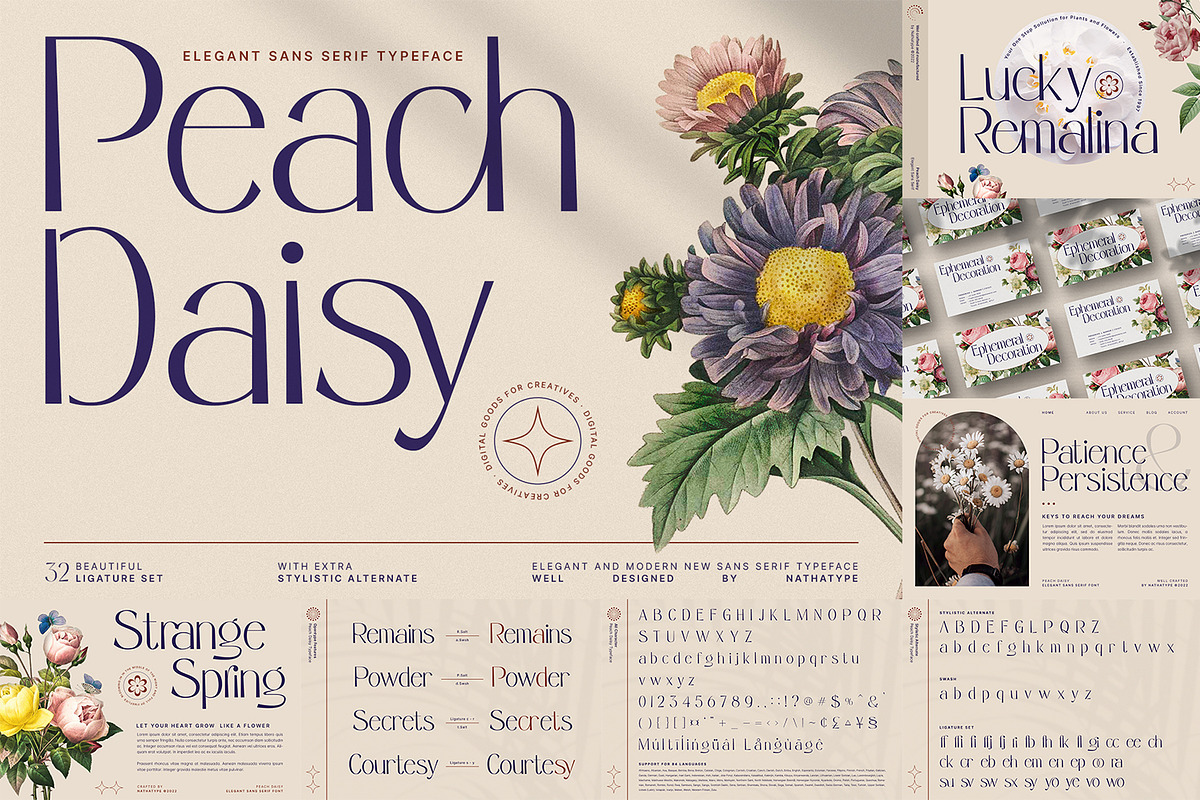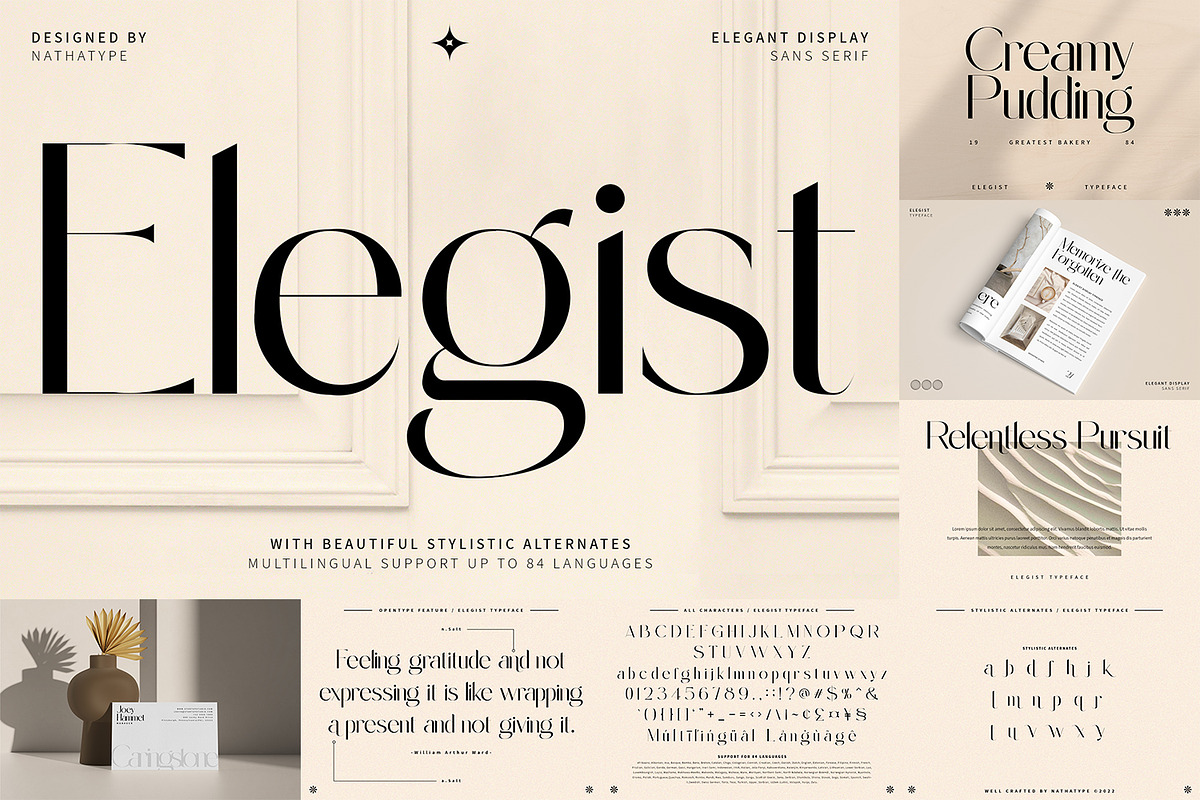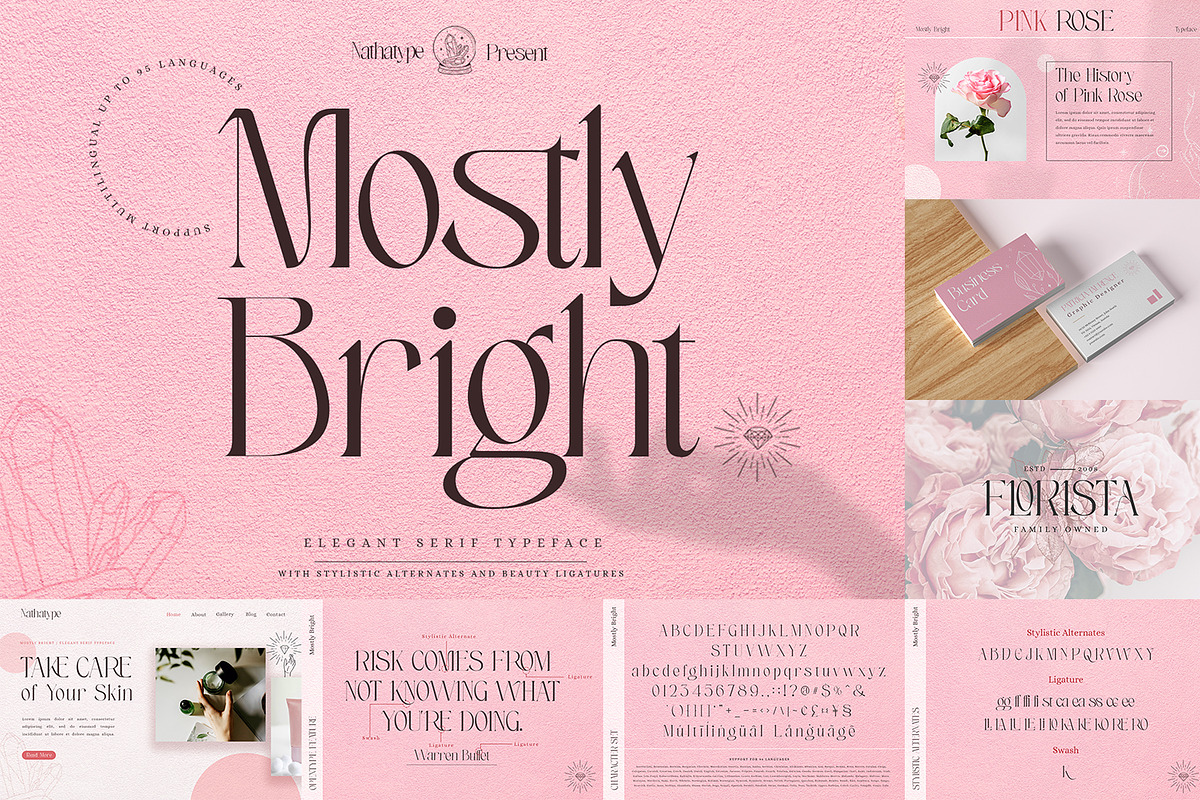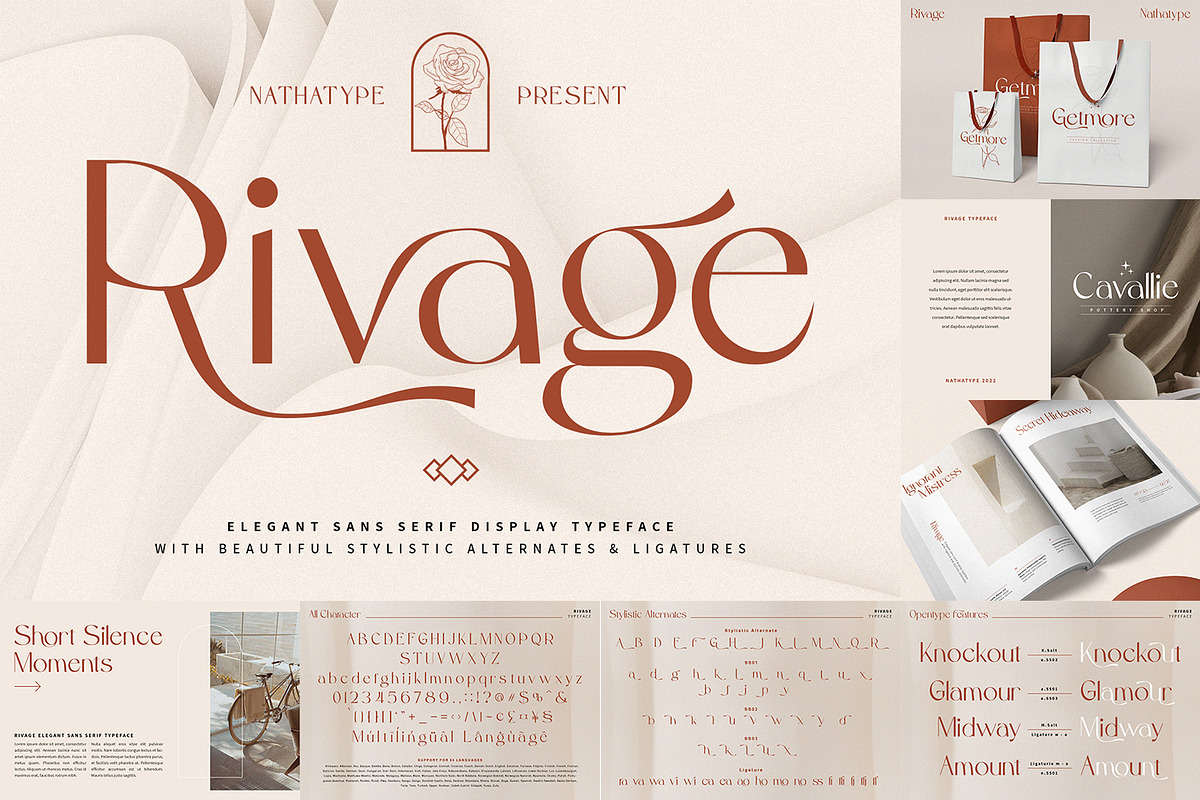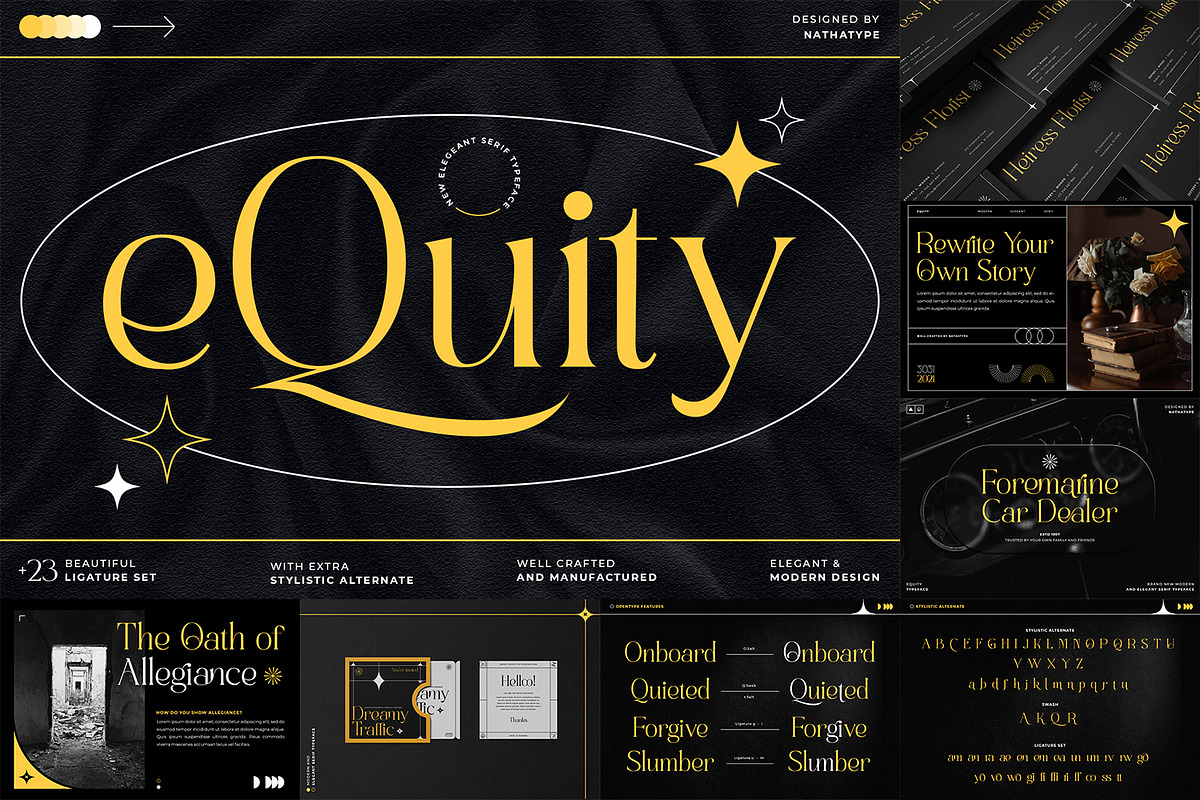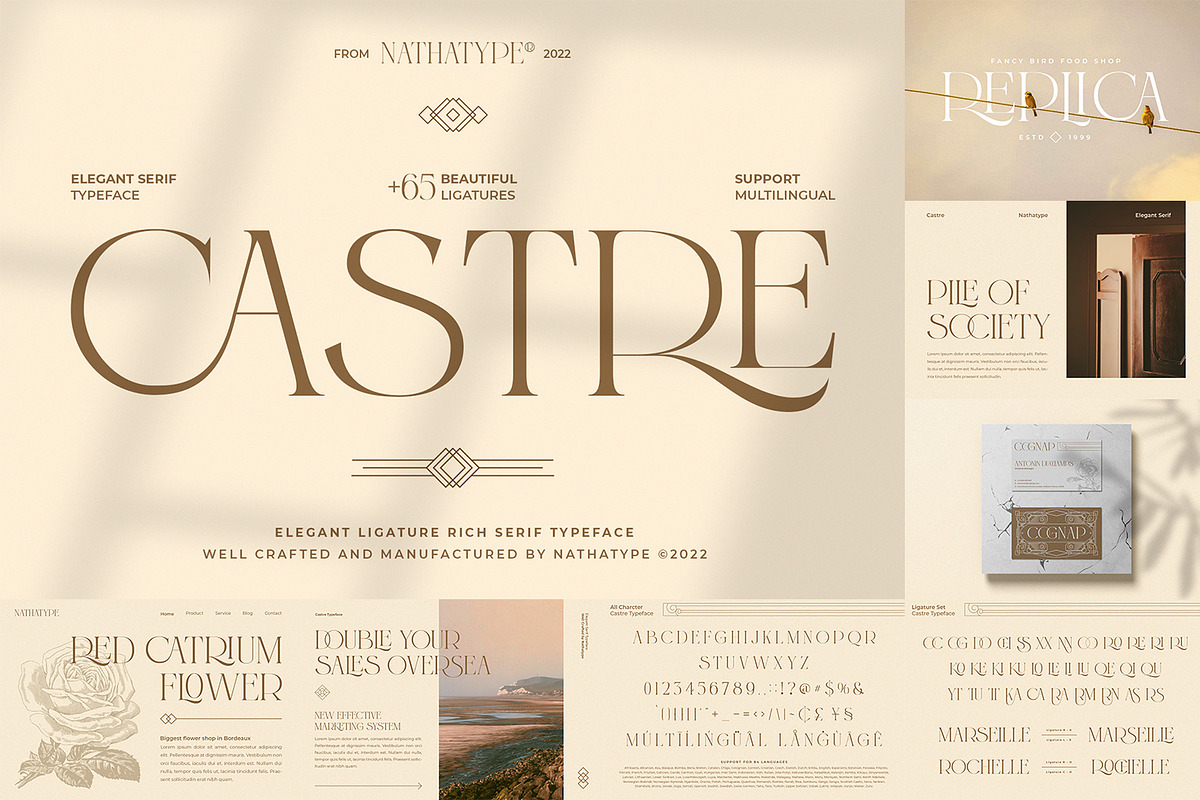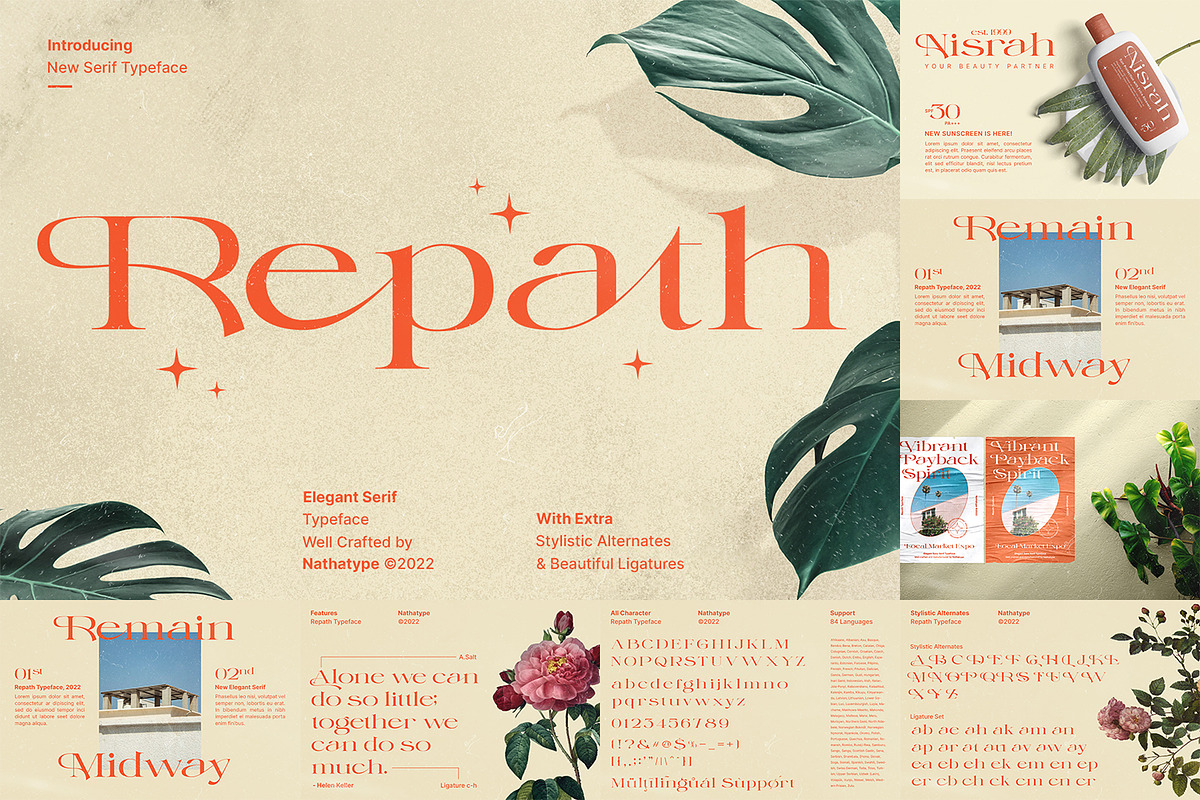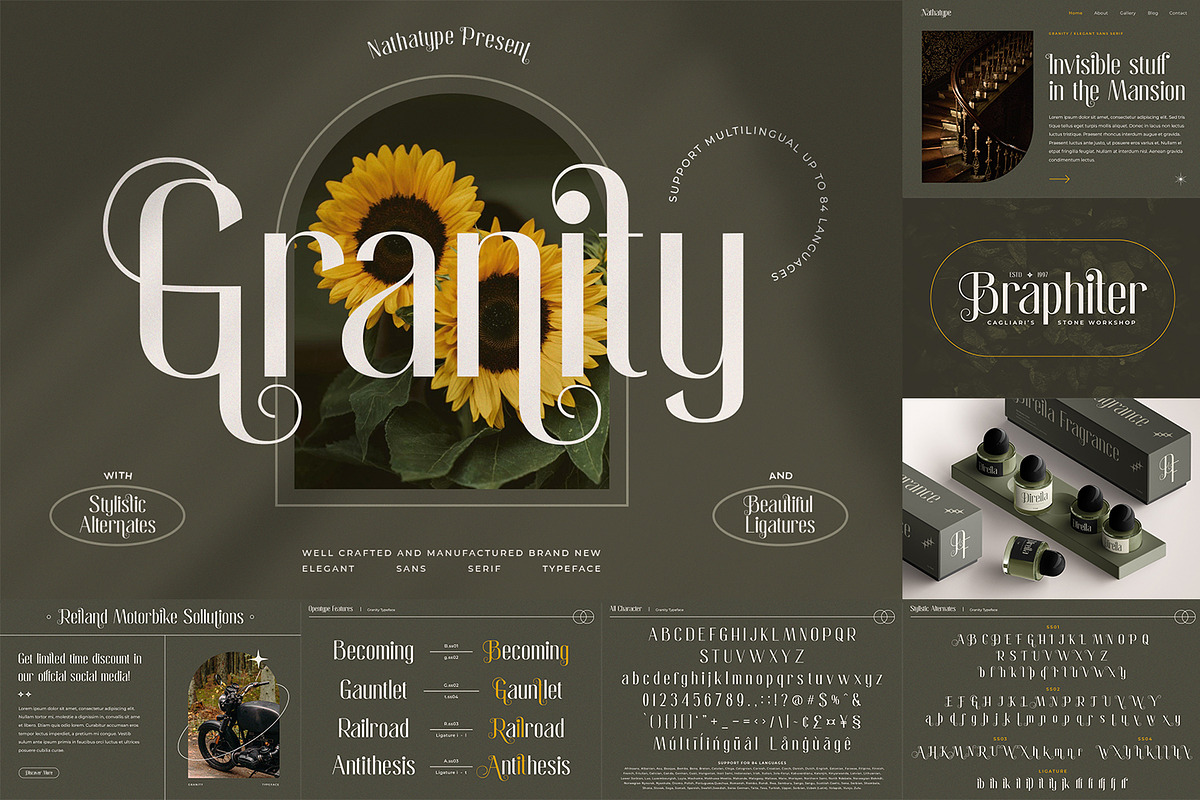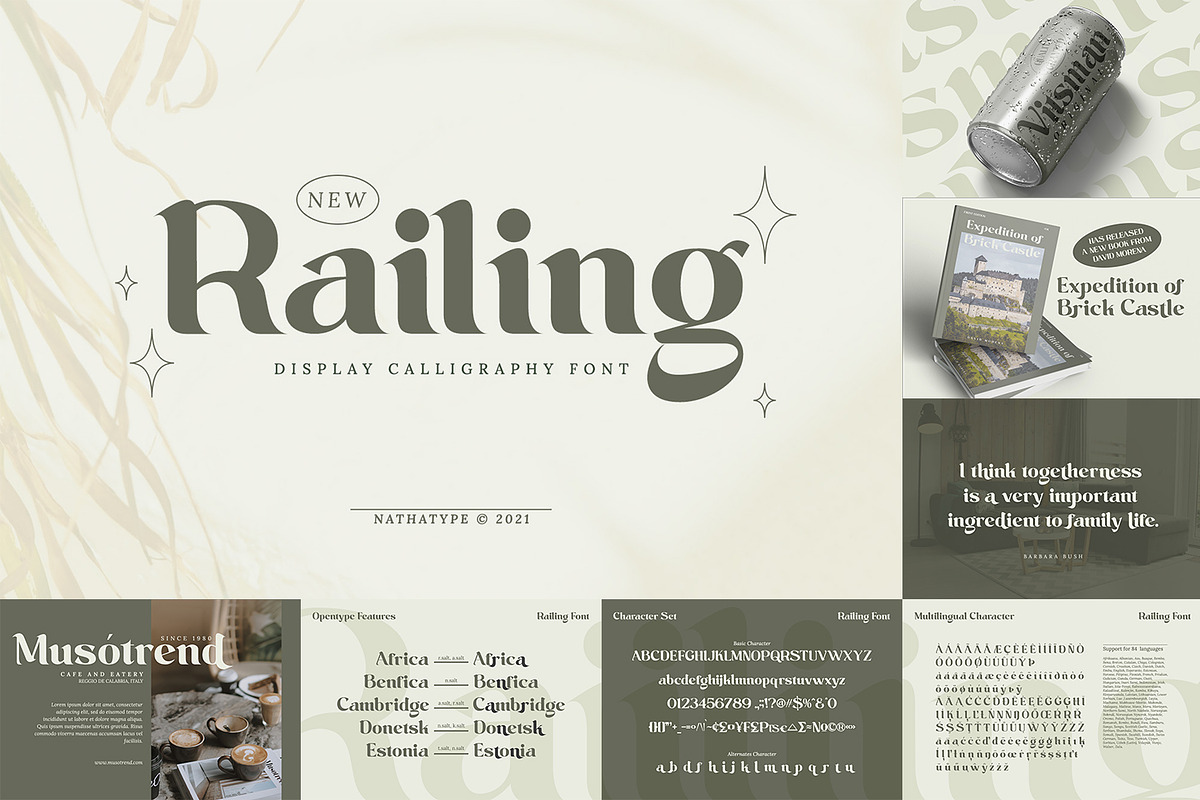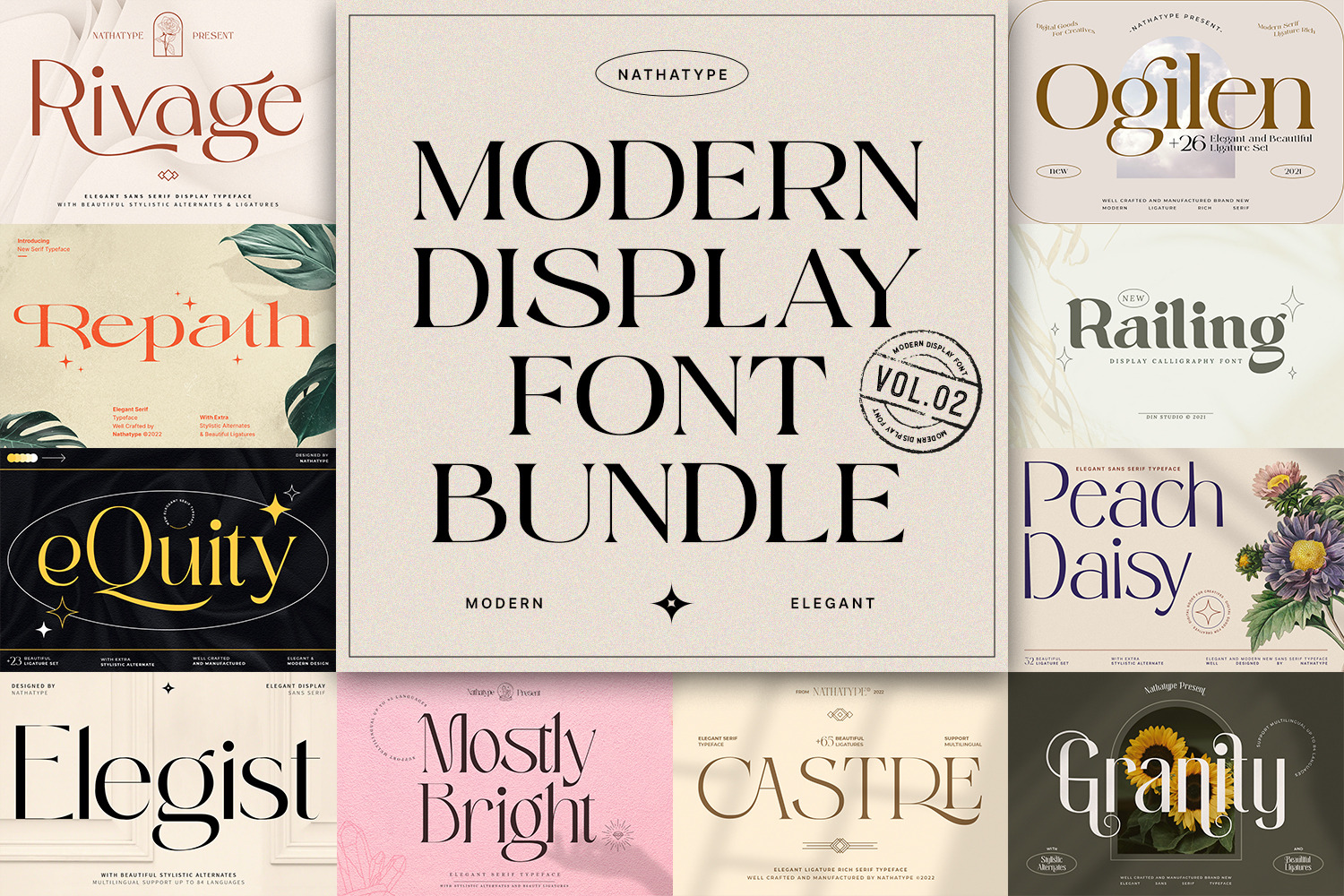
Modern Display Font Bundle 2
Hello Everyone! Do you want something special? Introducing Modern Display Font Bundle 2.
You can elevate your design with this lovely font collection. A collection that portrays a feeling of joy, peace and modernity. It can be used for many design projects, such as poster, logo, book cover, branding, heading, printed product, merchandise, quotes, social media campaign, etc.
The font includes Multilingual Support as our commitment to support your brand globally recognize. See the previews above to get some inspiration on how you can use them.
Modern Display Font Bundle included :
- Castre – https://creativemarket.com/nathatype/7054167-Castre
- Elegist – https://creativemarket.com/nathatype/7225480-Elegist
- Equity – https://creativemarket.com/nathatype/6928245-EQuity
- Granity – https://creativemarket.com/nathatype/7054165-Granity
- Mostly Bright – https://creativemarket.com/nathatype/7225486-Mostly-Bright
- Ogilen – https://creativemarket.com/nathatype/6824802-Ogilen
- Peach Daisy – https://creativemarket.com/nathatype/6928251-Peach-Daisy
- Railing – https://creativemarket.com/nathatype/6731991-Railing
- Repath – https://creativemarket.com/nathatype/7071097-Repath
- Rivage – https://creativemarket.com/nathatype/7157181-Rivage